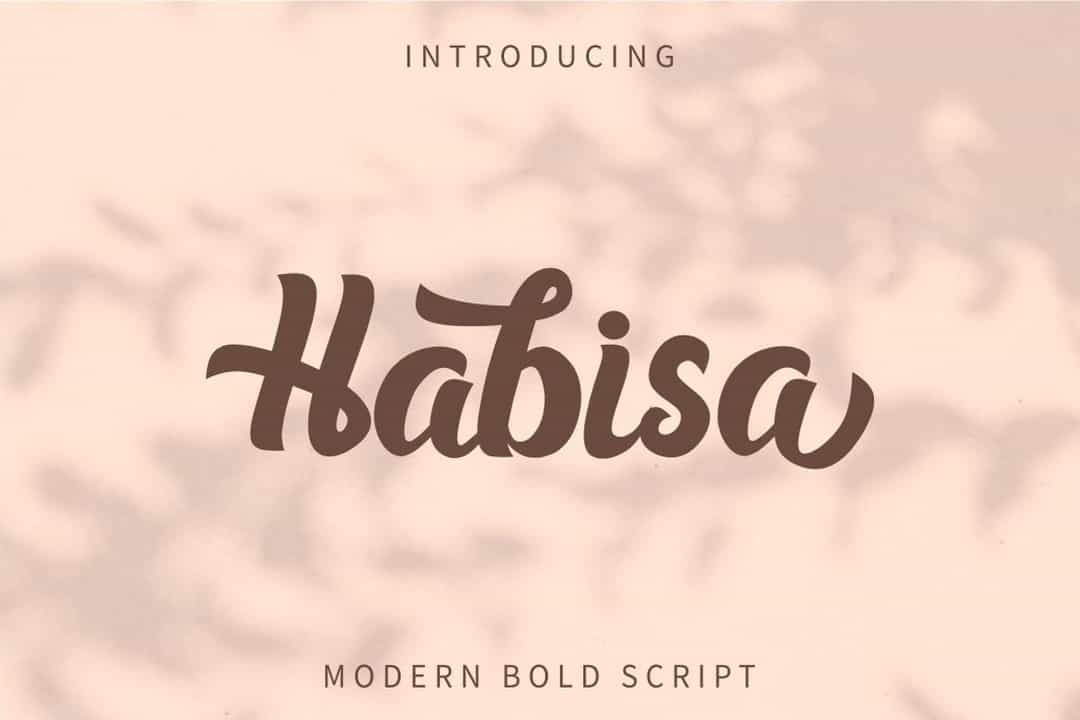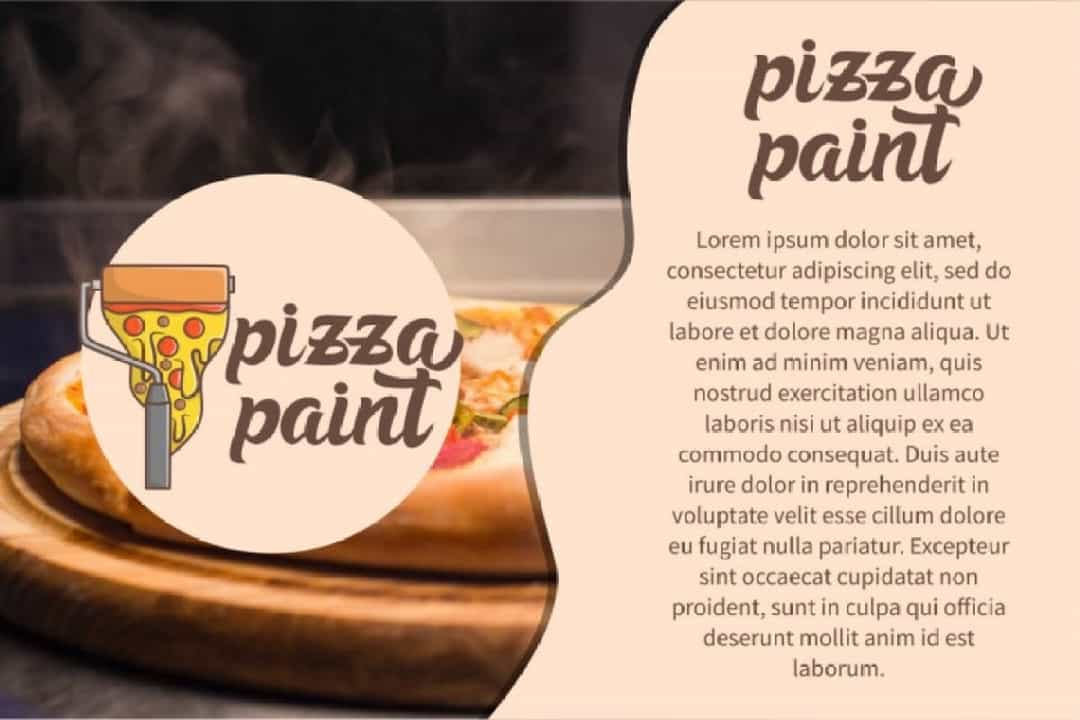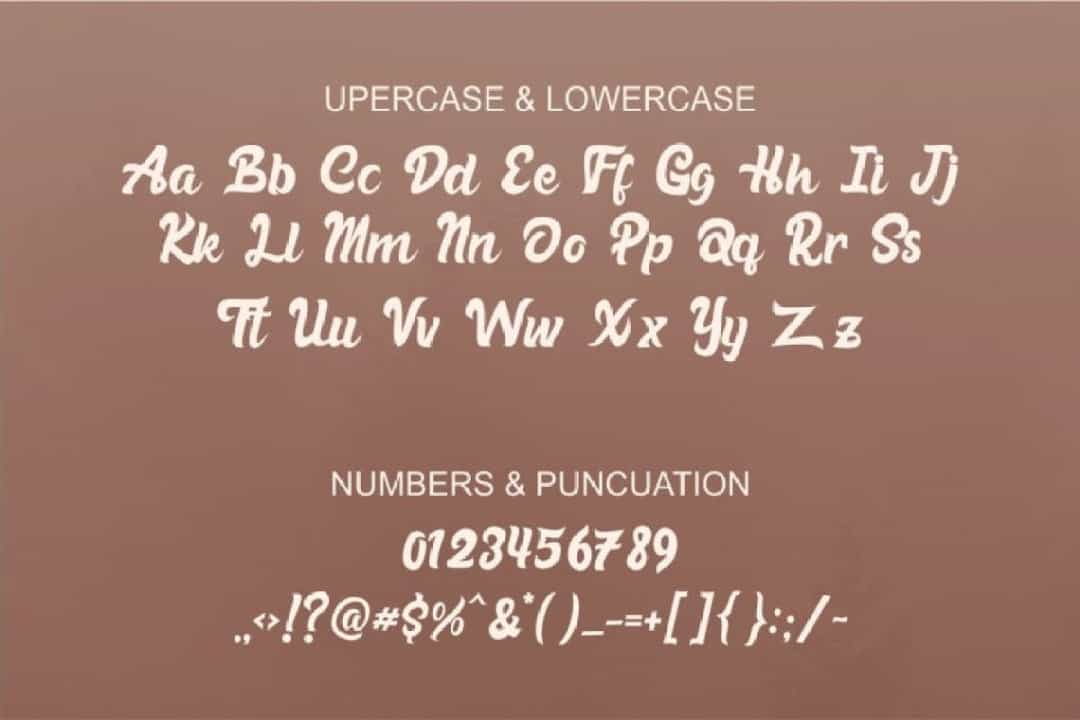
Discover Habisa Font, part of the Brush Calligraphy Handwritten Script Personal collection—a versatile and unique font perfect for adding a personal touch to your projects. Download it for free and enjoy crafting designs with style, from invitations to social media posts. This font is available exclusively for personal use, giving you the freedom to create without limits. Unlock your creativity with Habisa Font today!
Habisa is a contemporary handwritten style font that has been created using a pen. PUA encoded, Habisa is designed to provide easy access to all characters and strokes; the font has smooth lines and varied baseline to ensure readability and has attractive alternate glyphs that define the font.